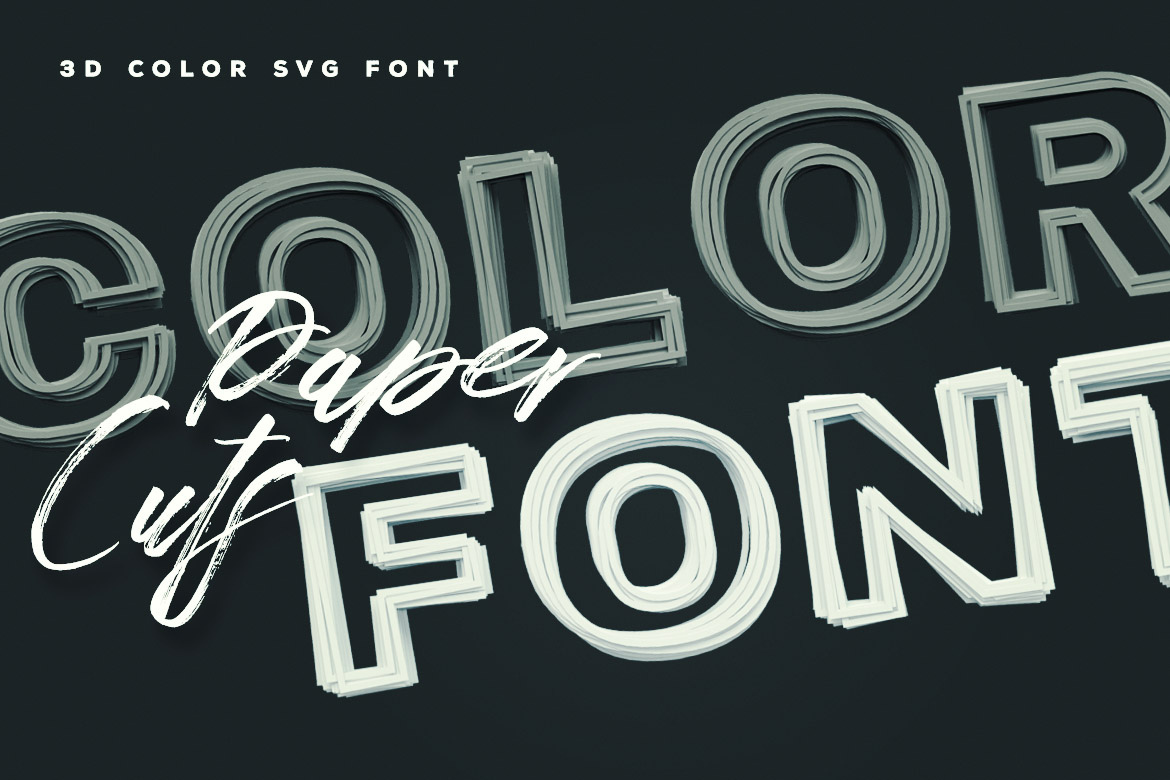
Paper Cuts Color Font
Paper Cuts Color Font is perfect for handmade craft branding, artistic workshop marketing, creative scrapbooking projects, artisan paper goods packaging, DIY craft store signage, creative education materials, handmade stationery design, and colorful artistic communications.
What makes Paper Cuts Color Font exciting is its artistic craftsmanship that embodies the creative precision and handmade beauty of paper cutting artistry with colorful authenticity and craft tradition. The font features layered letterforms with cut-paper proportions and artistic character variations that evoke craft scissors, layered paper art, and the meticulous creativity of handmade paper cutting and artistic craft work. Its distinctive paper-cut styling and colorful appeal communicate creativity, precision, and artistic skill, making every message feel crafted by hand and touched by the vibrant beauty of paper cutting artistry and colorful craft tradition.
This vibrant artistic typeface brings instant creativity and craft credibility to any paper-cutting project. Paper Cuts Color Font Free Download offers exceptional value for craft businesses and artistic organizations seeking to communicate handmade quality, creative artistry, and craft authenticity to craft enthusiasts and creative audiences.
The artistic character of Paper Cuts Color Font makes it particularly valuable for craft stores, artistic workshops, and handmade product creators. Its excellent impact ensures creative messaging and craft communications capture attention while maintaining the distinctive paper-cut aesthetic that appeals to crafters seeking authentic handmade experiences and artistic creativity.
Craft industry marketers appreciate how Paper Cuts Color Font effortlessly conveys artistic authenticity and handmade quality. The font's layered proportions and colorful details create compelling brand materials that establish connections with audiences who value creative craftsmanship, artistic expression, and the vibrant beauty of paper cutting artistry and handmade craft traditions.
The versatile artistry of this typeface extends to creative education, artistic therapy, and handmade gift companies where paper-cut authenticity enhances creative credibility and artistic appeal. Paper Cuts Color Font Free Download provides creative professionals with an essential tool for developing memorable, craft-driven designs that resonate with audiences who embrace artistic creativity, handmade craftsmanship, and the colorful precision of paper cutting artistry in their craft and creative experiences.